If you want to add a touch of festive charm to your designs, the right Christmas font can make all the difference.
With countless fonts to choose from, you might find yourself lost in a sea of options, unsure of which one will truly capture the holiday spirit.
In this guide, youโll unwrap the best Christmas fonts and learn how to use them to make your designs sparkle brighter than a Christmas tree.
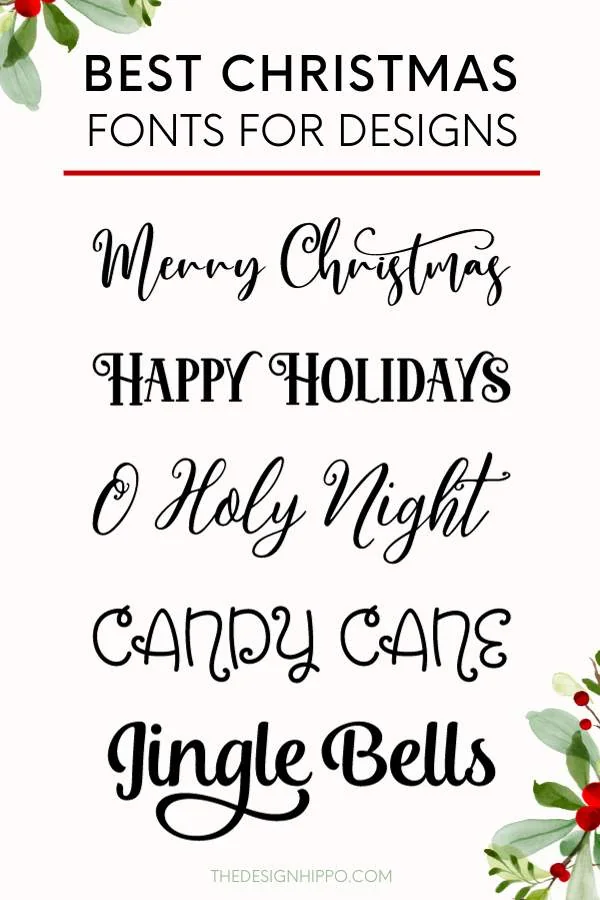
Best Christmas Fonts – Our Top Picks
- Best Overall – Wonderful Christmas
- Most Popular – Welcome Christmas
- Best for Cards – Welcome Holiday
- Best for Card Envelopes – Charcuterie
- Best for Cricut – Madison Split Monogram
- Best for Ornaments – Melly Script
- Best for Stockings – Andalusia
- Best for Card Labels – Advent
- Best for Invitations – Hello Christmas
- Best on Microsoft Word – Segoe Script
- Best on Canva – Great Vibes
- Best on Google Docs – Amatic SC
- Best on Adobe – Tangelo
Best Christmas Fonts
As experienced designers, weโve used several Christmas fonts in diverse projects ranging from stationery to clothing. Our tried and tested recommendations will ensure you have access to all the right fonts to make your holiday designs stand out.
Wonderful Christmas
Best Overall Christmas Font
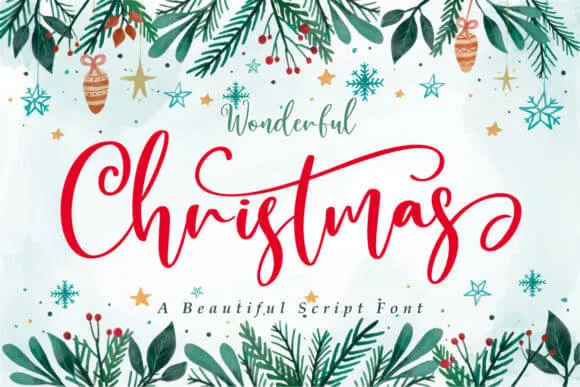
The Wonderful Christmas font is a fantastic choice for various holiday designs. Whether you are creating cards, labels, or signs, the beautiful font adds a charming, festive flair. Its unique blend of elegant script with whimsical swashes, ligatures, and alternates will make your designs stand out.
Welcome Christmas
Most Popular Christmas Font
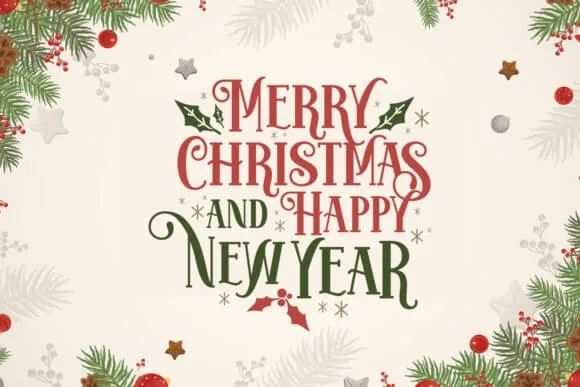
Welcome Christmas is a fancy display font that brings joy and playfulness to your holiday designs. The serif typeface features bold lettering and makes a strong statement that is perfect for Christmas cards, banners, or event invitations.
Welcome Holiday
Best Font for Christmas Cards
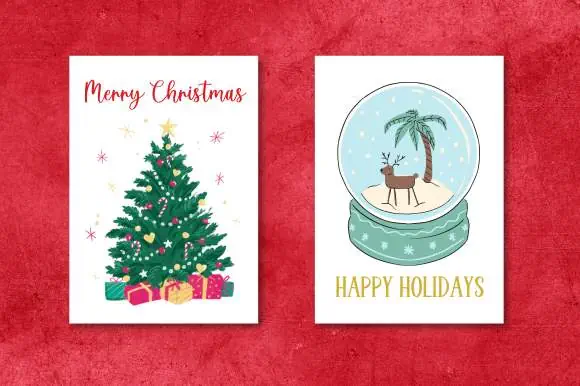
The ideal font for your Christmas card should align with the tone you wish to set and mirror your personal aesthetic or your company’s brand if it’s a business holiday card. The Welcome Holiday handwritten font pairing features cursive and display styles, offering a balanced blend of elegance and fun.
Charcuterie
Best Font for Christmas Card Envelopes
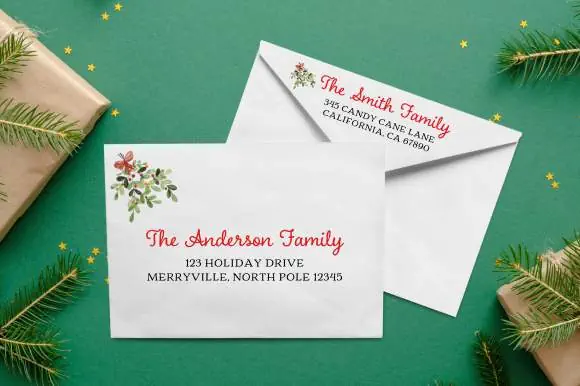
Choosing the right font for your Christmas card envelope is essential, as it sets the tone for the message inside.
The Charcuterie collection of font families, borders, and ornaments gives you endless possibilities for personalization. The cursive style is perfect for writing the recipientโs name, while the serif and sans serif styles are best suited for the address and other details.
Madison Split Monogram
Best Cricut Christmas Font
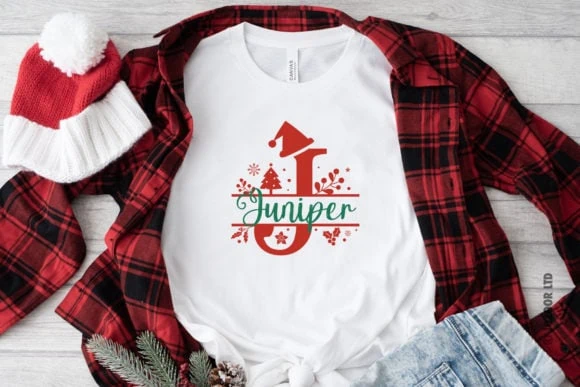
Madison is a creative font pairing that comprises a decorative split monogram font embellished with hand-drawn winter elements and a matching script font. It’s suitable for various Cricut vinyl projects, such as customizing t-shirts, ornaments, and home decor signs.
Melly Script
Best Font for Christmas Ornaments
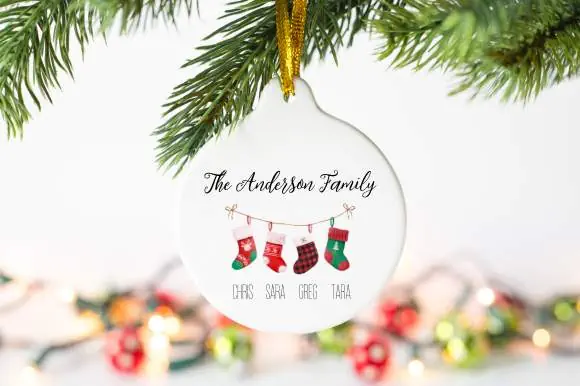
If it’s a classic, timeless aesthetic you’re after this festive season, look no further than the Melly script font. The hand-drawn font features unique lettering and stylistic alternates that can transform your decorations with vintage charm and elegance. Itโs perfect for customizing ornaments with family names, important dates, and quotes.
Andalusia Script
Best Font for Stockings
When choosing a font for customizing stockings, itโs ideal to pick one that is legible from a distance, compliments the preferences of the person the stocking is for, and aligns with the overall theme of your Christmas decor.
The Andalusia script is an excellent choice due to its mix of classic curves with a contemporary feel, making it ideal for both children’s and adult stockings.
Advent
Best Font for Card Labels
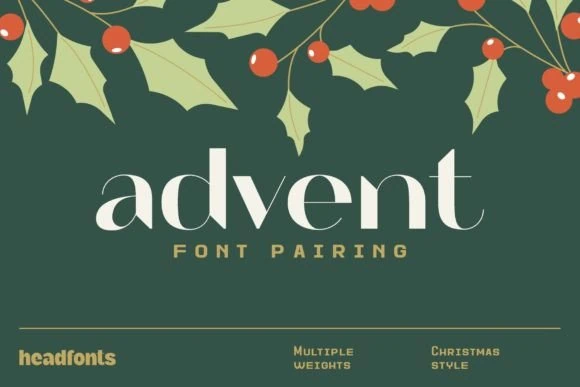
The Advent is a versatile font duo perfect for adding a festive and glamorous touch to your label designs. The distinct pair of elegant and simple geometric sans serif fonts form a balanced combination that can adapt to various design styles, from minimalist to elaborate.
Hello Christmas
Best Font for Invitations
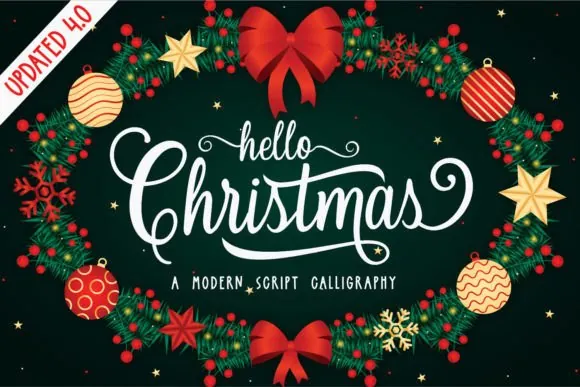
Hello Christmas is a modern script calligraphy font perfect for all your Christmas invitation design needs. The gorgeous glyphs and stunning swashes will inspire you to create unique and beautiful invitations that echo the joy and warmth of the holiday season.
Segoe Script
Best Christmas Font on Microsoft Word
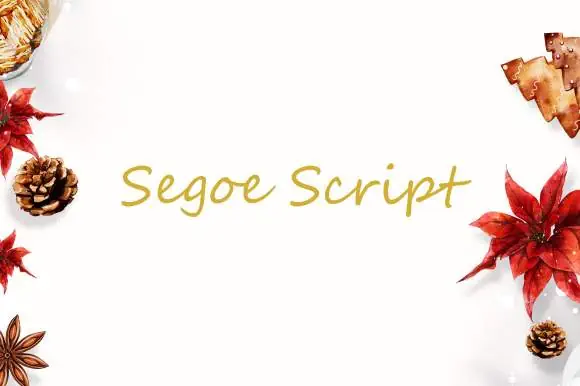
The Segoe script font is an excellent option for your Christmas designs on Microsoft Word. Regardless of whether you’re creating a design from the ground up or utilizing Word’s ready-made templates, the font’s handwritten aesthetic is ideal for holiday cards, invitations, and other festive communications.
If your cards have a lot of text, choose a font that’s easy to read at a small size. However, if your card features minimal text, you can use a more decorative and elaborate font.
What are the best Cricut Christmas fonts?
The best font for your Cricut project depends on the materials and tools youโre using. A single-line font is best suited for writing on cards, envelopes, and labels with a pen. If youโre making vinyl crafts, such as personalized t-shirts, ornaments, and stockings, youโll want to choose a bold font that is legible from a distance and easy to weed.